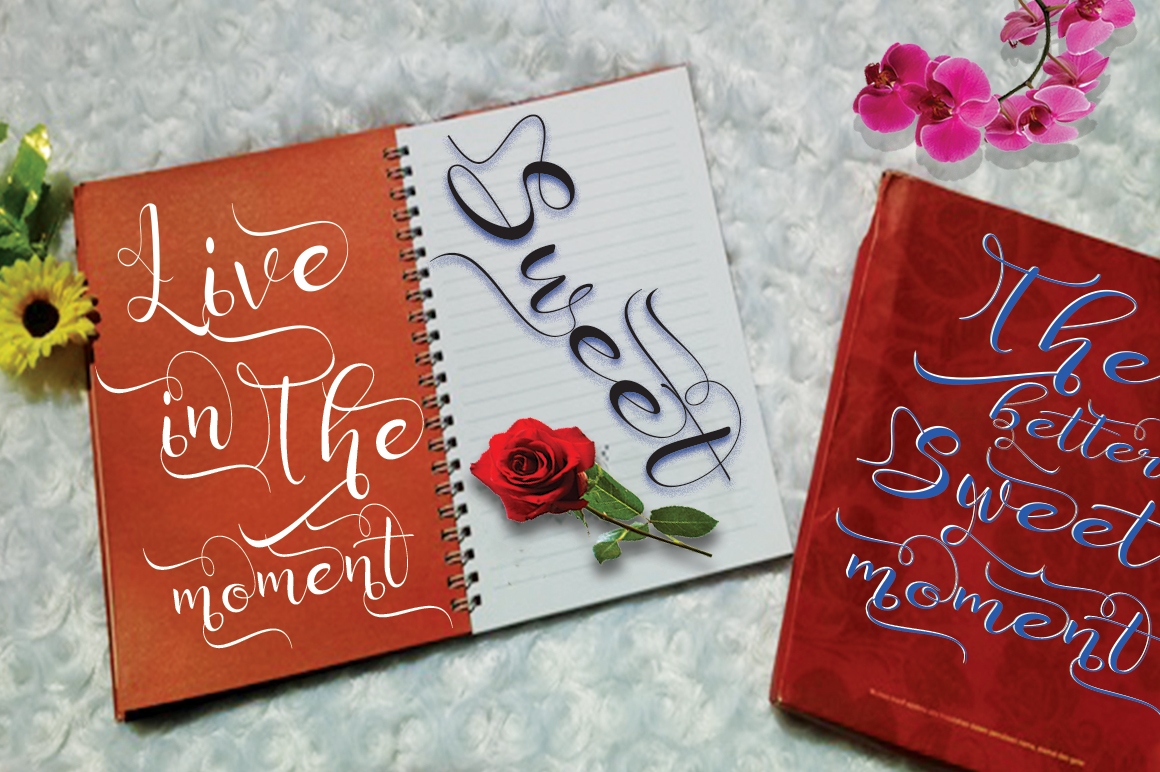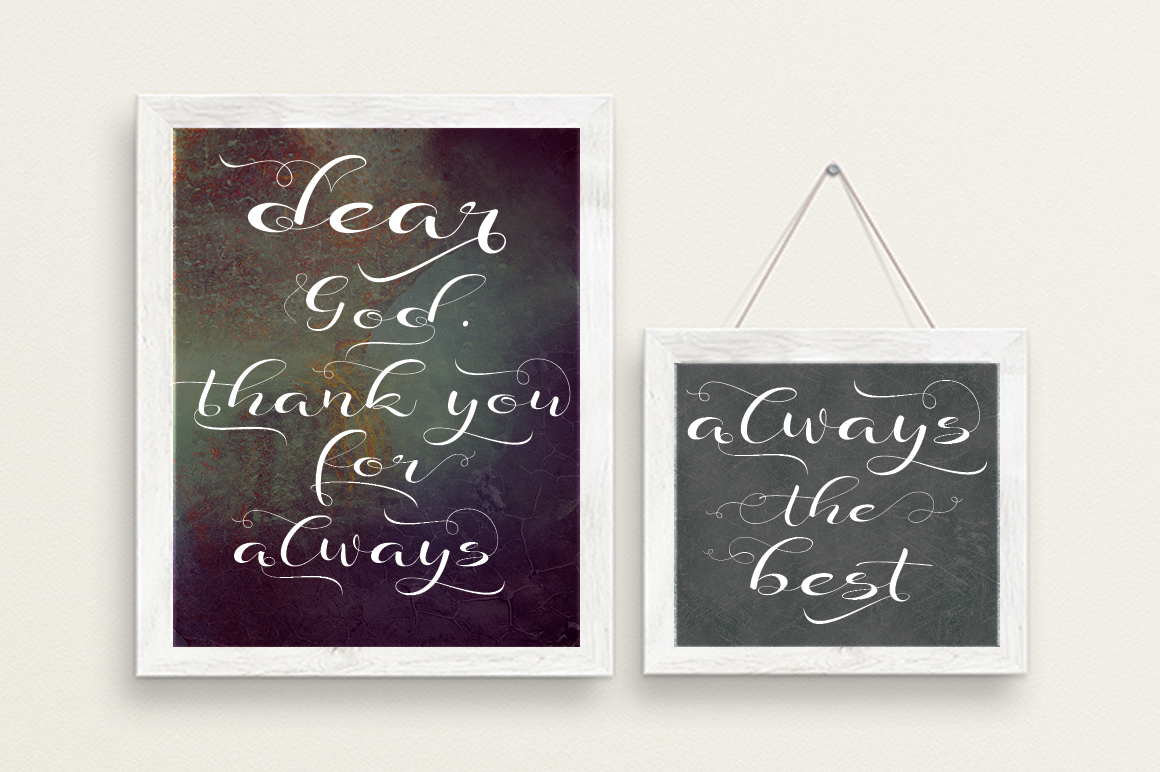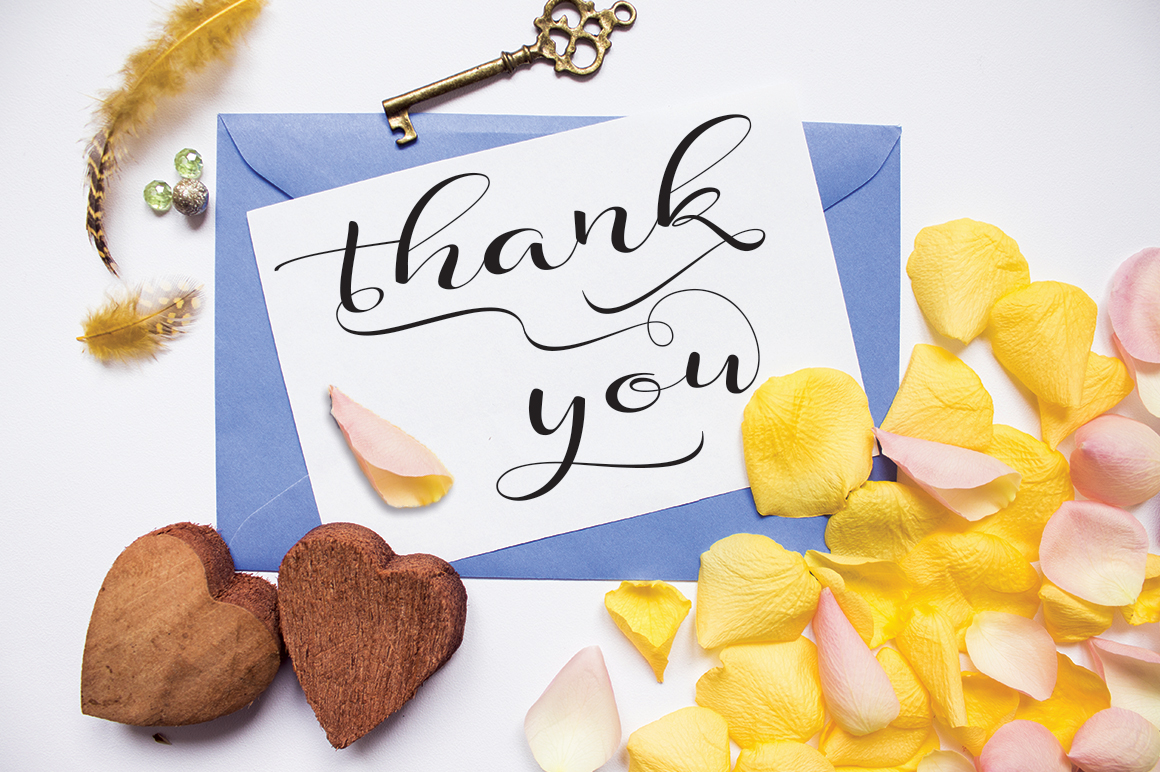
HomeScript FontsIlligia Font Script Fonts Illigia Font FacebookXPinterestWhatsApp Illigia Font Poster 2 Illigia Font Poster 3 Illigia Font Poster 4 About Illigia Font Illigia is a stunning font with features a natural handwritten flow. It comes with over 430 unique glyphs. DOWNLOAD ON CREATIVE FABRICAThis font is sold and delivered by Creative Fabrica. Font Canyon may earn a commission if you buy through this link. People also explored Farmhouse Winter Font Wonder Soul Font Dinomax Font Moffle Chee Handwritten Font Slim Extreme Font Simple Farmhouse Font Morchain Script Roaster Font Sendayu Font 299 0 TagsIlligia Font Previous articleMiss Lavanda FontNext articlePatricia Font LEAVE A REPLY Cancel reply Comment: Please enter your comment! Name:* Please enter your name here Email:* You have entered an incorrect email address! Please enter your email address here Website: Save my name, email, and website in this browser for the next time I comment. Personal Use Free Loopina Personal Use Free Read more about this font New System Personal Use Free Read more about this font Penelope Brush Script Font Personal Use Free Read more about this font Hubbies Personal Use Free Read more about this font BLOG The 10 Best Handwriting Fonts to Add Personality to Your Designs 10 of the Best Handwriting Fonts for Adding Personality to Your Designs There will undoubtedly be no other better choice than handwriting fonts to give... Top 10 Handwritten Fonts That Elevate Your Designs Top 7 Google Fonts Alternatives for Faster and Privacy-Friendly Web Design (2025) How to Cut Any Font on Cricut: Convert a Font to SVG (Free)